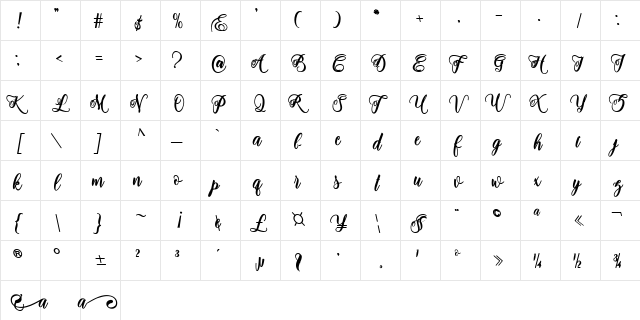
adinda script Regular
| Foundry | adefa studio |
| Designer | adefastudio |
Design Context for adinda script Typeface
adinda script flows with the natural rhythm of handwritten lettering, making it ideal for designs that call for warmth and personal expression.